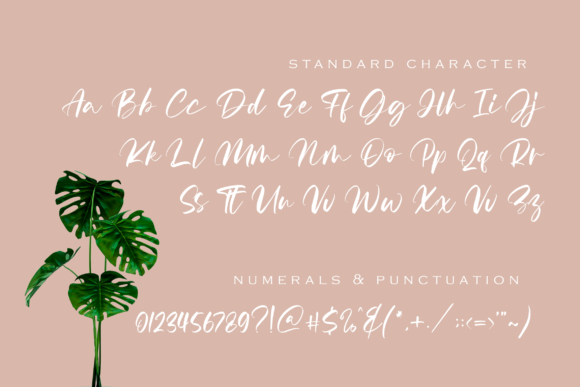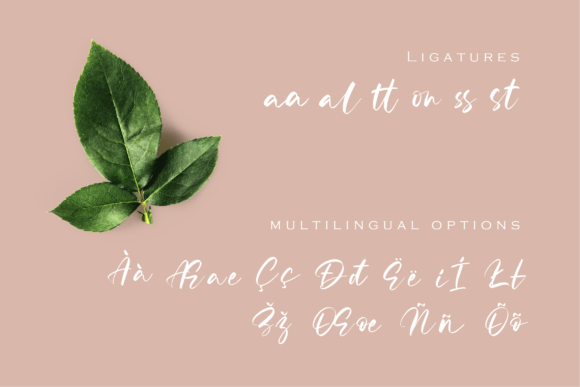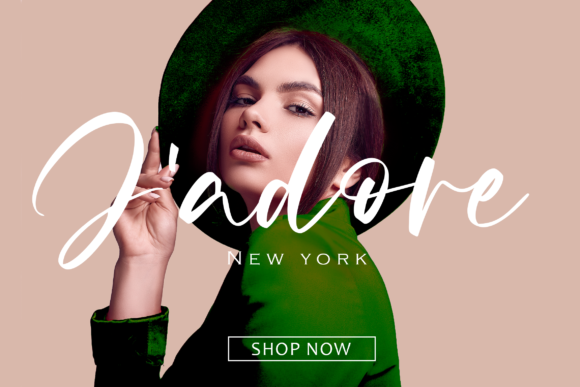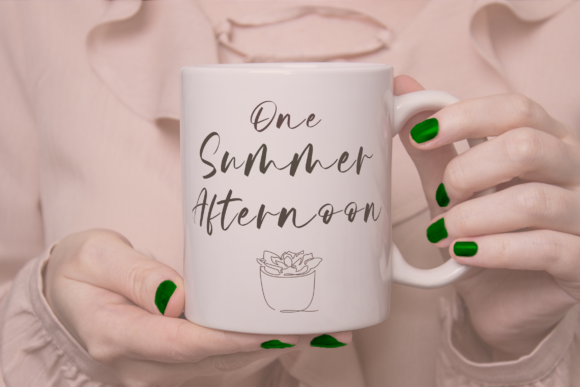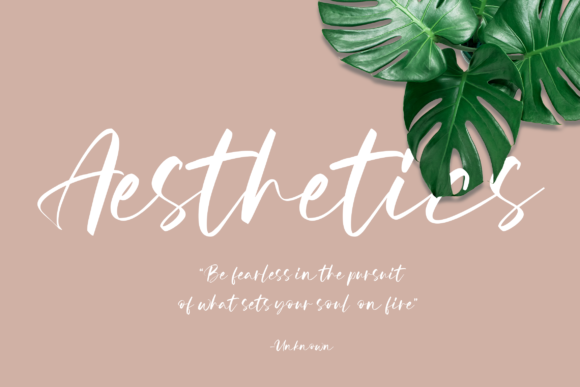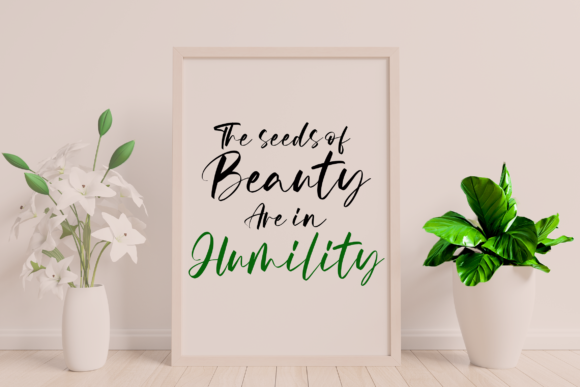
Introduction to Radella Font
As a designer, you’ve probably been in a situation where you’re brainstorming ideas for a new project and you just can’t seem to find the right font to bring it all together. The search is on for that perfect combination of elegance and modernity that will make your design truly stand out. And then, just like magic, you stumble upon the Radella Font – a beautiful and relaxed script font that’s sure to take your creative project to the next level.
With its classy, elegant, and modern look, the Radella Font is a design resource that’s perfect for logos, branding, invitations, stationery, wedding designs, social media posts, and much more. Whether you’re working on a high-quality design project or just need a quick solution for a social media post, this font is sure to impress. And the best part? It’s available for free download with a transparent background, making it easy to integrate into any design.
Key Features of Radella Font
- Comes in multiple weights and styles, offering flexibility for different design needs
- Resolution-independent, ensuring crisp and clear display in various sizes and resolutions
- Designed for use in digital and print media, including web design, logos, and signage
- Perfect for designers and artists looking for a unique and stylish font for their next creative project
Honest Review: Radella Font
As a designer, I’m always on the lookout for high-quality design resources that can elevate my creative projects. Recently, I stumbled upon the Radella Font, and I’m excited to share my honest review with you.
- ✨ Elegant and sophisticated design that’s perfect for luxury brands and high-end projects.
- ✨ Comes in a range of weights, making it versatile and easy to use in various design contexts.
- ✨ Supports various languages, making it a great option for international projects.
Overall, I’m impressed with the Radella Font’s quality and versatility. While it may have a few limitations, it’s a solid addition to any designer’s toolkit. Whether you’re working on a high-end creative project or just need a reliable font for everyday use, the Radella Font is definitely worth checking out – especially since it’s available for free download.
To get the most out of Radella Font, try experimenting with different font sizes, colors, and combinations. You can also use the font in combination with other design elements to create unique and eye-catching designs. Additionally, be sure to check for updates and new versions of the font to stay up-to-date with the latest design trends.
Radella Font is a versatile design resource that can be used in a variety of creative projects. Some common use cases include creating logos, graphics, and presentations, as well as designing websites and social media graphics. With its high-quality design and transparent background, Radella Font is a great resource for designers and non-designers alike.